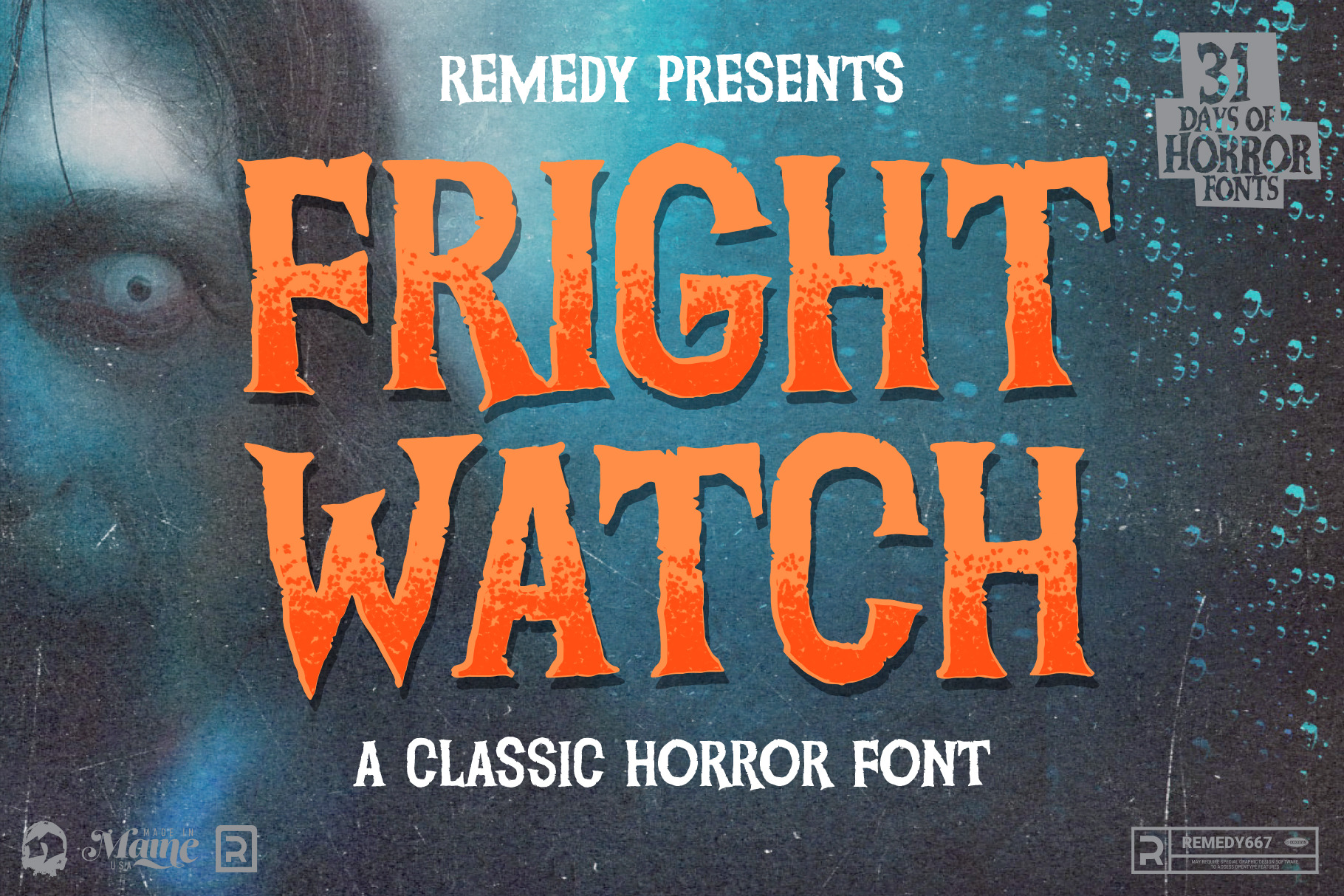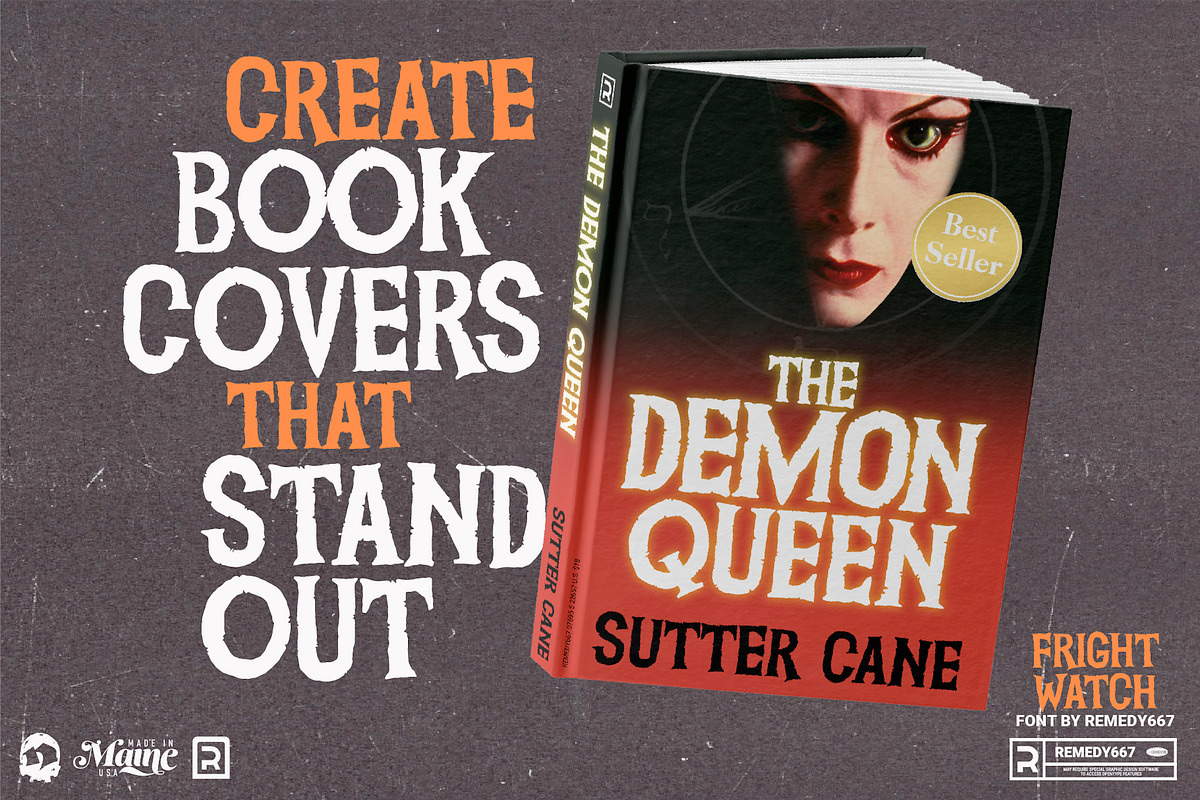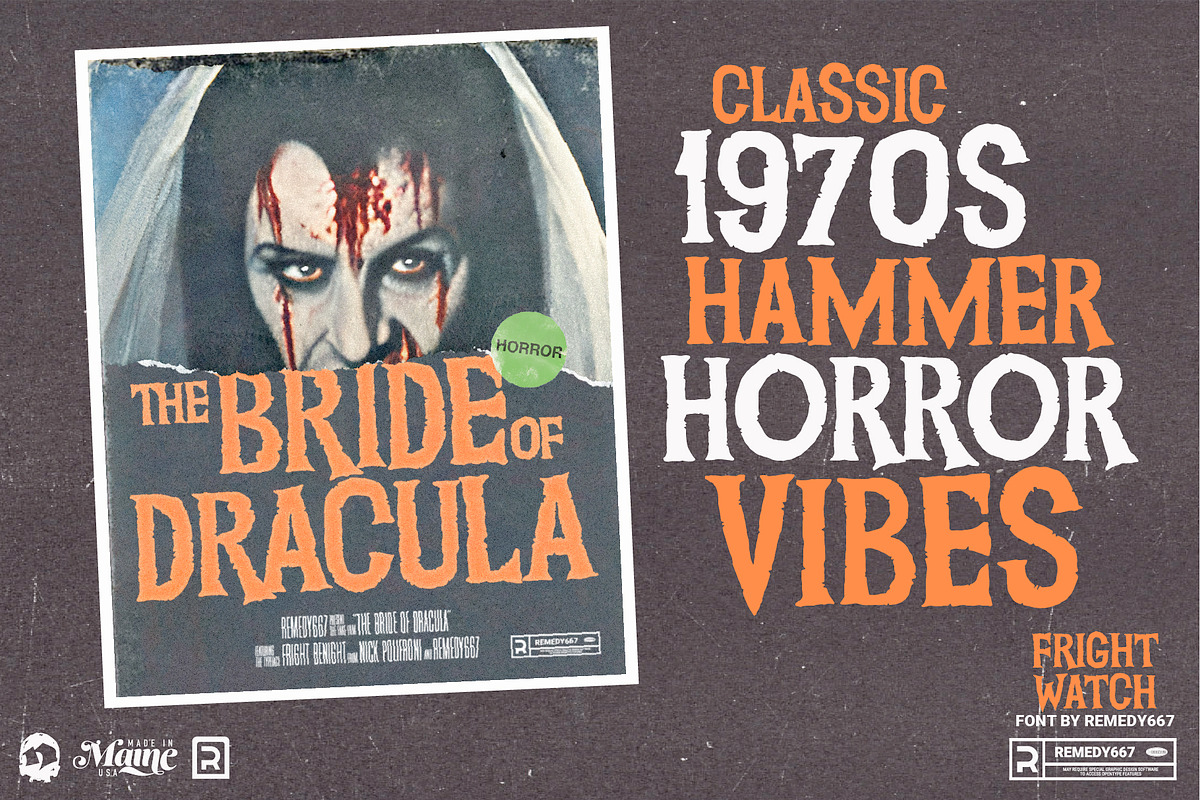
Fright Watch - Classic Horror Font
Sink your fangs into Fright Watch and add a spooky, supernatural touch to all your designs! Inspired by classic vampire films, this font will give your artwork an eerie edge, with its staggered baseline and unique letterforms. Fright Watch is perfect for adding terror and fear to your designs.
Dare to be bold and take your designs to the next level with this unique and creepy typeface. Contextual alternate numbers make it perfect for book chapters or album cover designs. Add Fright Watch to your toolbox and let the fear begin!
- Contextual alternates for numbers and letters
- Stand out with spooky designs that communicate to your audience
- Instant vintage spooky vibes